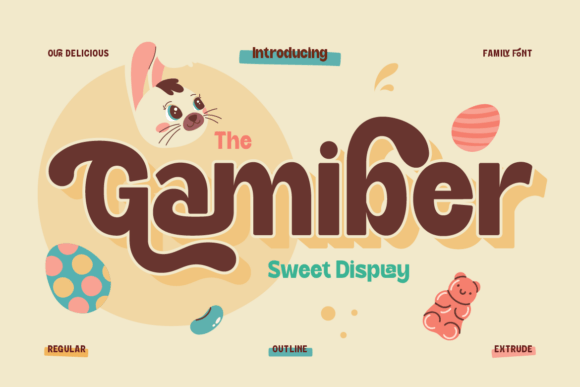
Gamiber Font: The Ultimate Playful Display Font for Your Design Projects
Are you looking for a font that can add a fun and retro vibe to your design projects? Look no further than Gamiber Font! This sweet and playful display font is perfect for creating cheerful and eye-catching designs that will capture the attention of your audience. In this article, we’ll take a closer look at Gamiber Font, its features, and how you can use it to elevate your designs.
What is Gamiber Font?
Gamiber Font is a display font that brings a fun retro vibe with bold shapes and smooth, curvy lines. It’s perfect for designs that require a playful and cheerful touch, such as branding, packaging, posters, and social media graphics. The font comes in three styles: Regular, Outline, and Extrude, making it easy to mix and match for your designs.
Key Features of Gamiber Font
- Fun Retro Vibe: Gamiber Font has a unique retro vibe that’s perfect for designs that require a playful touch.
- Bold Shapes and Smooth Lines: The font features bold shapes and smooth, curvy lines that give it a distinctive look.
- Three Styles: Gamiber Font comes in three styles: Regular, Outline, and Extrude, making it easy to mix and match for your designs.
- Perfect for Food-Related Themes: The font is perfect for food-related themes, nostalgic designs, and anything kid-friendly.
Use Cases for Gamiber Font
Gamiber Font is a versatile font that can be used for a variety of design projects, including:
- Branding: Use Gamiber Font to create a playful and memorable brand identity.
- Packaging: The font is perfect for packaging designs that require a fun and eye-catching touch.
- Posters: Create bold and eye-catching posters with Gamiber Font.
- Social Media: Use the font to create engaging social media graphics that will capture the attention of your audience.
Why Choose Gamiber Font?
There are many reasons why you should choose Gamiber Font for your design projects. Here are a few:
- Unique and Playful: Gamiber Font has a unique and playful look that’s perfect for designs that require a fun touch.
- Versatile: The font comes in three styles, making it easy to mix and match for your designs.
- Easy to Read: Despite its playful look, Gamiber Font is easy to read, making it perfect for designs that require a clear and concise message.
Tips for Using Gamiber Font
Here are a few tips for using Gamiber Font in your design projects:
- Use it for Headings: Gamiber Font is perfect for headings and titles, so use it to create bold and eye-catching text.
- Mix and Match: Experiment with different styles of Gamiber Font to create a unique look for your designs.
- Pair it with Other Fonts: Pair Gamiber Font with other fonts to create a contrasting look that’s perfect for designs that require a bit of personality.
In conclusion, Gamiber Font is a playful and versatile display font that’s perfect for designs that require a fun and retro vibe. With its bold shapes, smooth lines, and three different styles, it’s easy to mix and match for your designs. Whether you’re working on branding, packaging, posters, or social media graphics, Gamiber Font is a great choice. So why not give it a try and see how it can elevate your designs?
- What is Gamiber Font? Gamiber Font is a playful display font that brings a fun retro vibe with bold shapes and smooth, curvy lines.
- What styles does Gamiber Font come in? Gamiber Font comes in three styles: Regular, Outline, and Extrude.
- Is Gamiber Font easy to read? Yes, despite its playful look, Gamiber Font is easy to read, making it perfect for designs that require a clear and concise message.